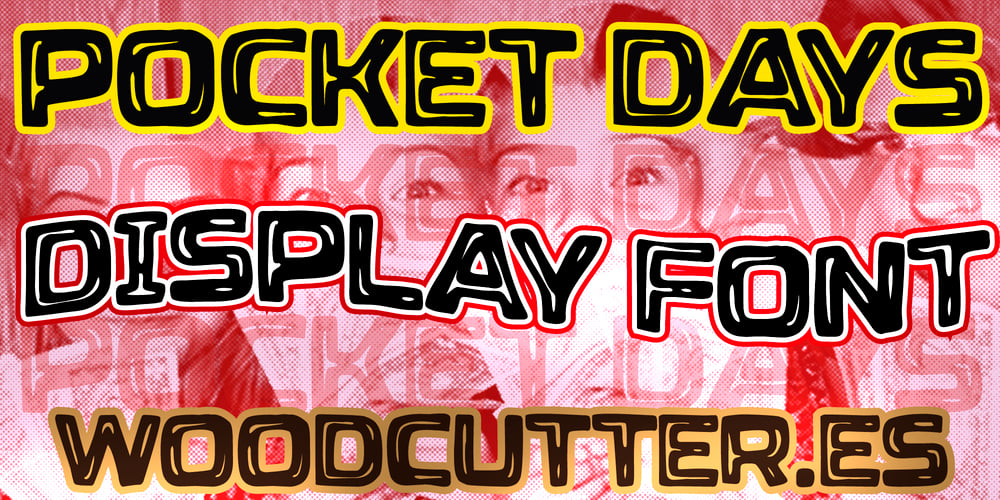
Pocket Days Font Family was designed by Jordi Manero and published by Woodcutter. Pocket Days contains 1 styles and family package options. “Pocket Days” is a font decorated with shadows in uppercase letters, evoking a techno vibe. Each letter is precisely designed, creating a depth effect that stands out in any design. Ideal for modern and technological projects, “Pocket Days” brings a futuristic and dynamic feel. Its clear and defined aesthetic makes it perfect for headlines, logos, and graphics that require a strong and contemporary presence. With its combination of elegance and modernity, this font becomes a versatile and eye-catching option for any creative work.